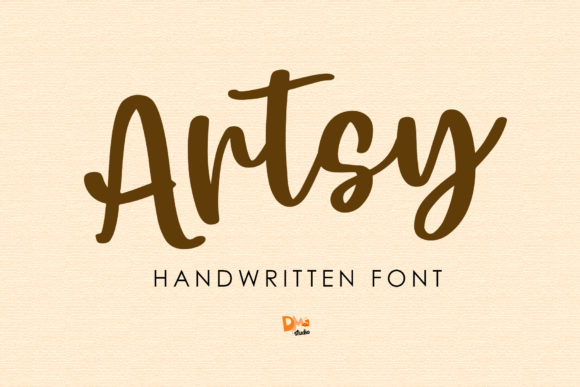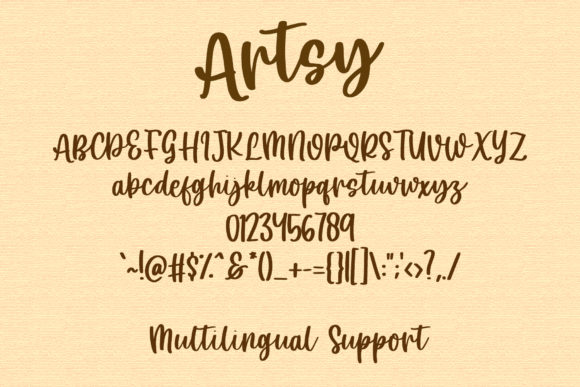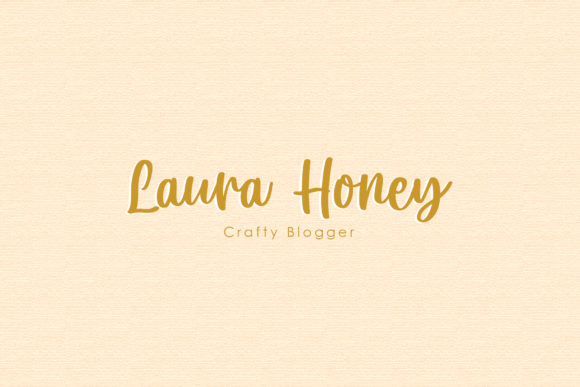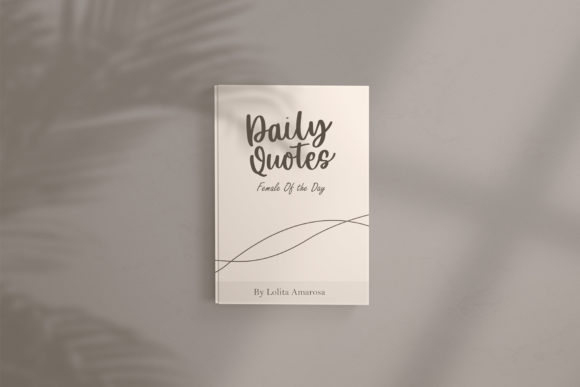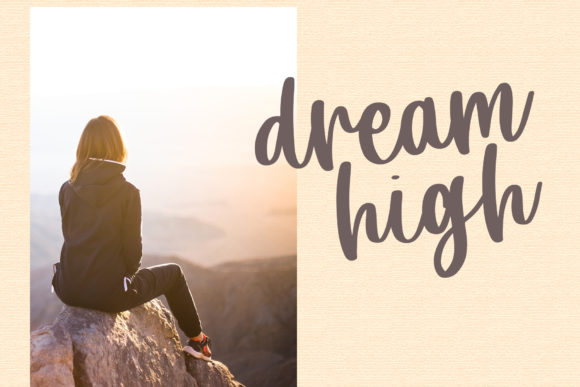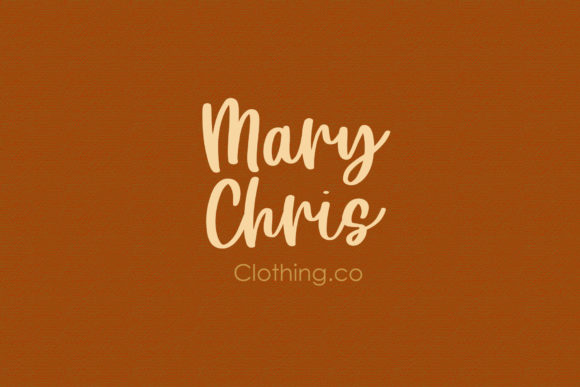
Artsy Font
About Artsy Font
Artsy is a modern and bouncy handwritten font. It features gorgeous ligatures that make this script incredibly versatile. Whether you’re looking for fonts for Instagram or calligraphy scripts for DIY projects, Artsy will turn any creative idea into a true piece of art!